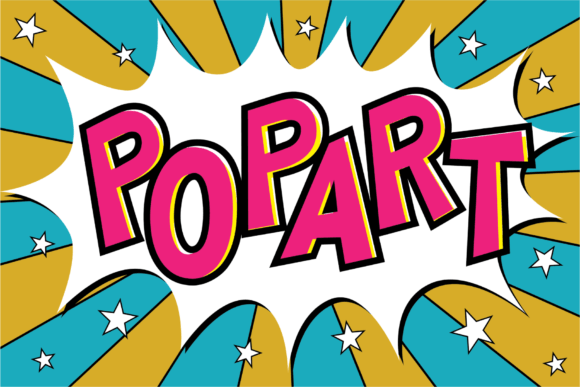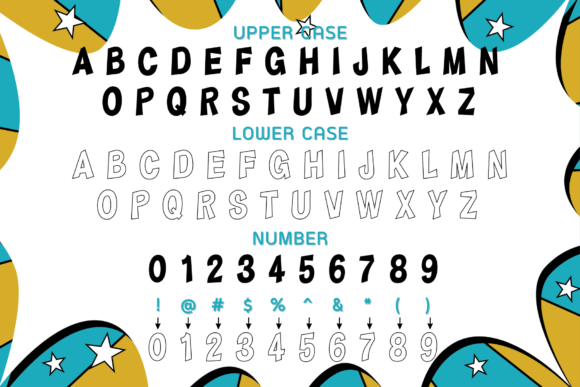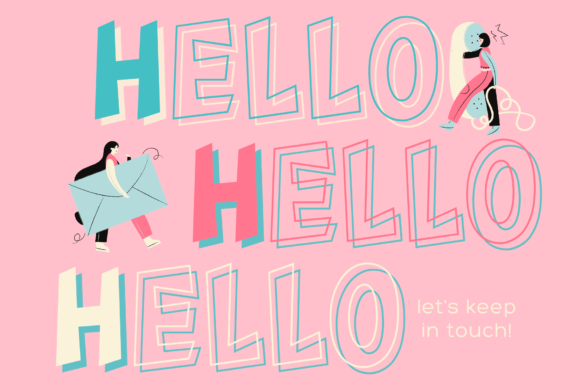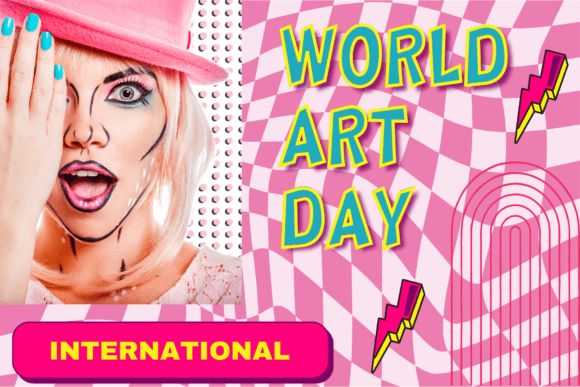
Pop Art Font
About the Pop Art Font
Experience the unique personality of Pop Art Font, a font designed for impact. Pop Art is a cool and playful display font that evokes the bold and colorful style of 1960s pop art. Its chunky and stylized letters feature bright colors and unique shapes, making it perfect for creating eye-catching titles and headlines for posters, album covers, and other pop art-inspired designs. The font’s retro and energetic personality is sure to make a statement.
Pop Art Font excels in display applications such as headlines, posters, and branding elements where its bold personality can shine. It’s ideal for projects needing a retro-modern feel, particularly those related to entertainment, fashion, or food. However, its chunky forms are less suitable for body text or UI elements requiring high readability.
Pairing it with a clean sans-serif like Helvetica Neue for body copy creates a balanced contrast, while a playful script font adds a touch of vintage flair. Geometric sans-serifs offer a modern counterpoint, allowing Pop Art Font to maintain visual dominance.
The font’s core personality is energetic and bold, conveying a sense of fun and retro-modern sophistication. It’s best suited for brands seeking a vibrant and memorable visual identity.
Pop Art Font Usage Examples
Pop Art Font Example